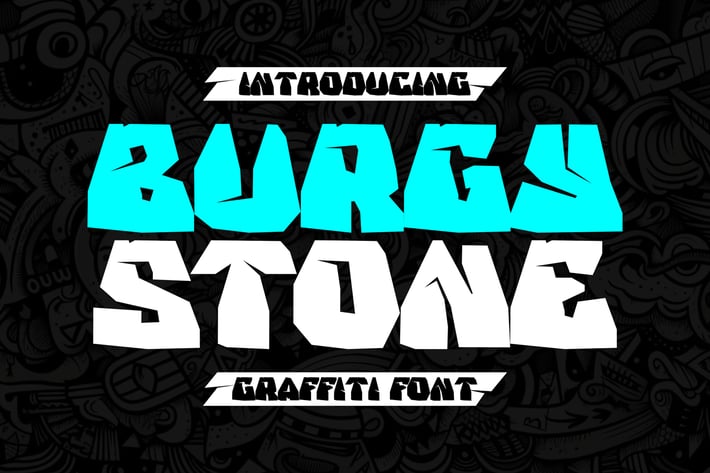
Burgystone - Bold Graffiti Font
Burgystone is a bold and expressive graffiti font that brings the raw energy of street art to your designs. With its edgy, chiseled lettering, this font captures the essence of rebellious creativity, making it the perfect choice for projects that demand an urban and gritty aesthetic. Whether used for posters, street art, or designs that require a powerful and unapologetic style, Burgy Stone injects a dose of streetwise attitude into your typography, leaving a lasting impression on the walls and screens alike.